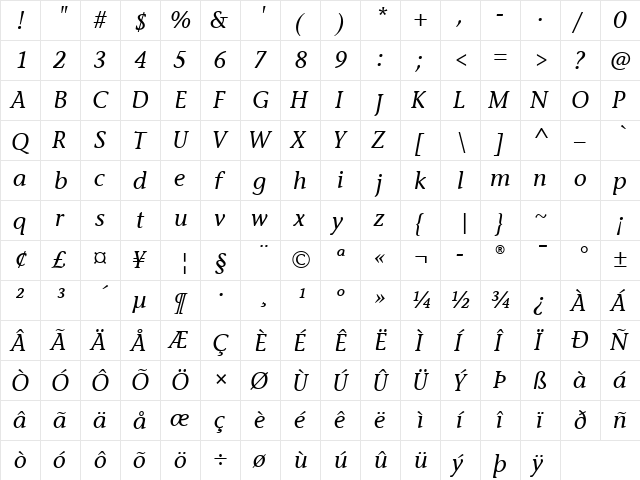
Stone Inf ITC TT MediumItalic
Design Context for Stone Inf ITC TT Typeface
Stone Inf ITC TT is a composed and adaptable typeface that performs quietly and consistently across a wide range of design contexts. The slanted form adds forward momentum and visual energy.
Pro Tip: Use Stone Inf ITC TT for emphasis, pull quotes, and subheadings where its slanted energy can add rhythm to the layout.